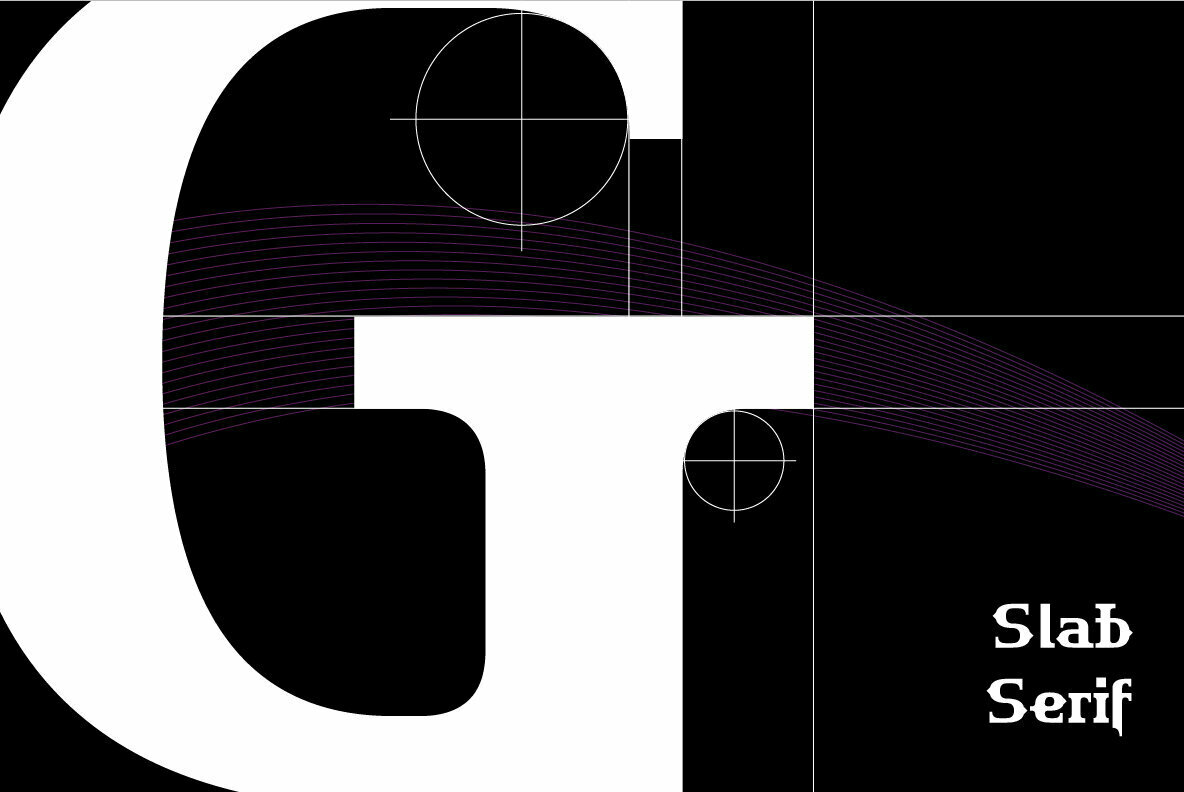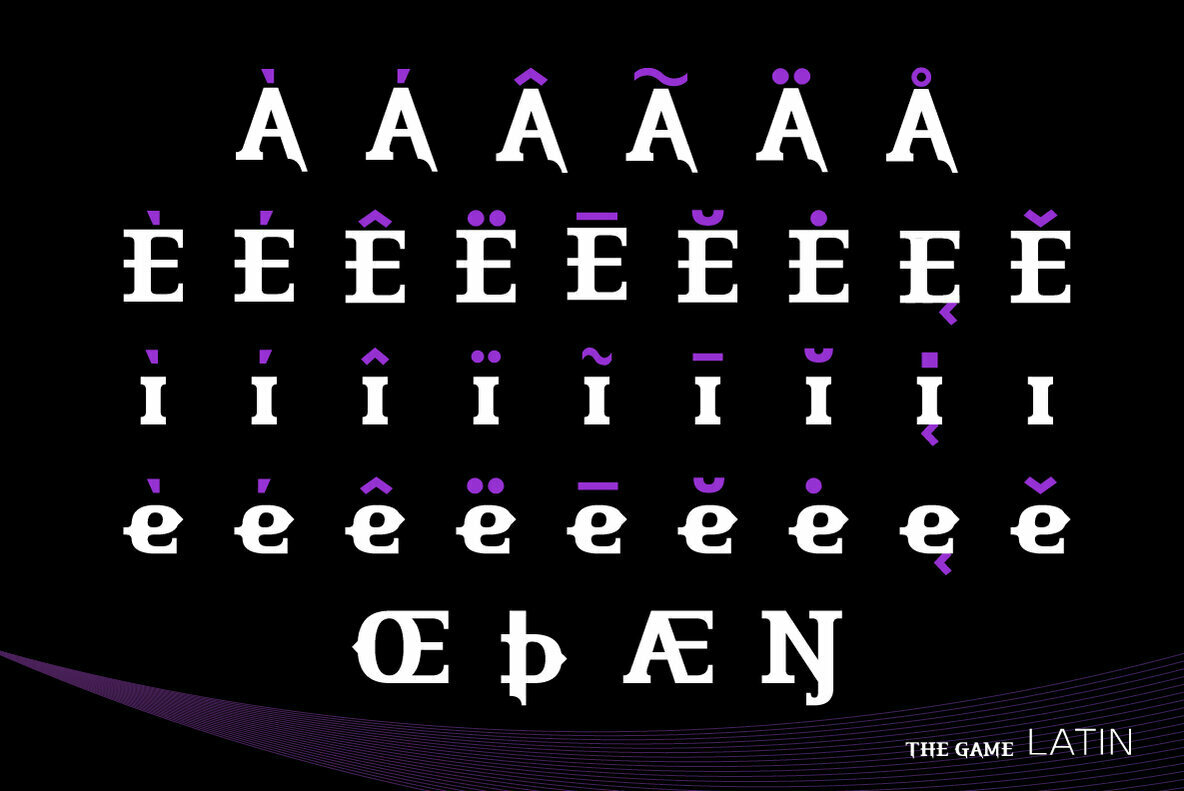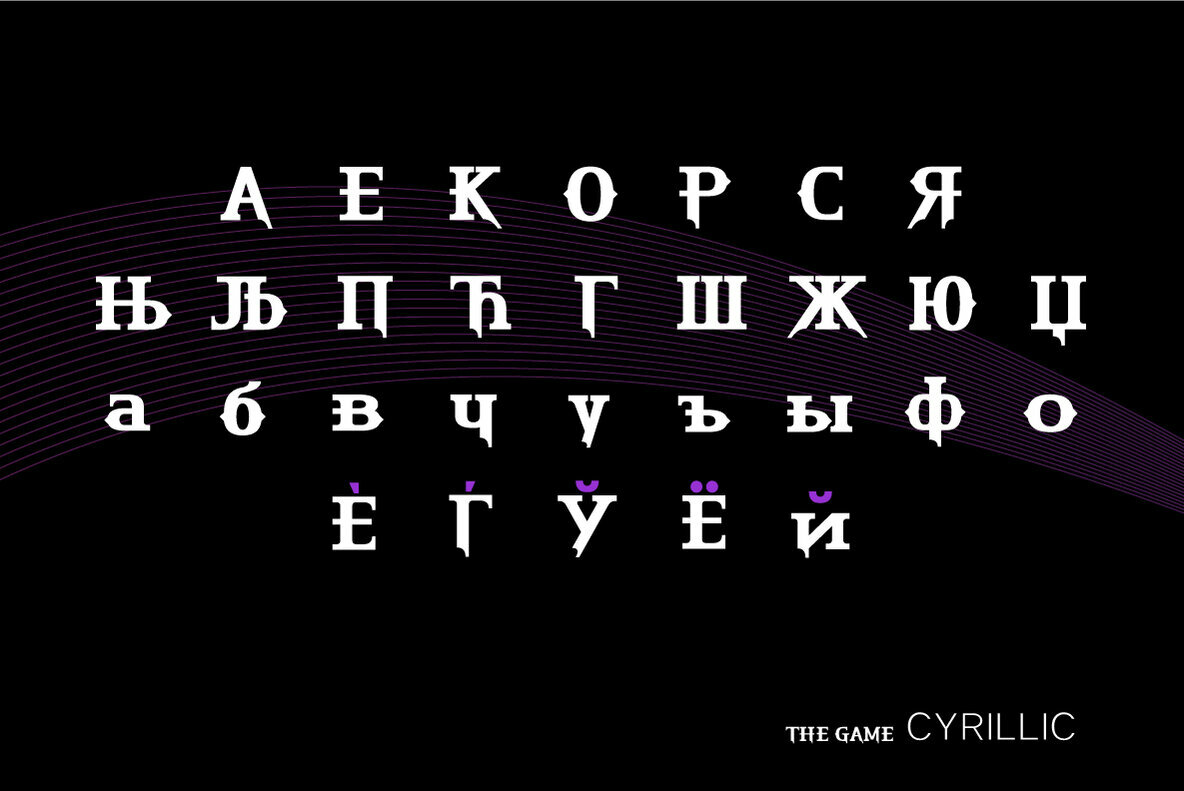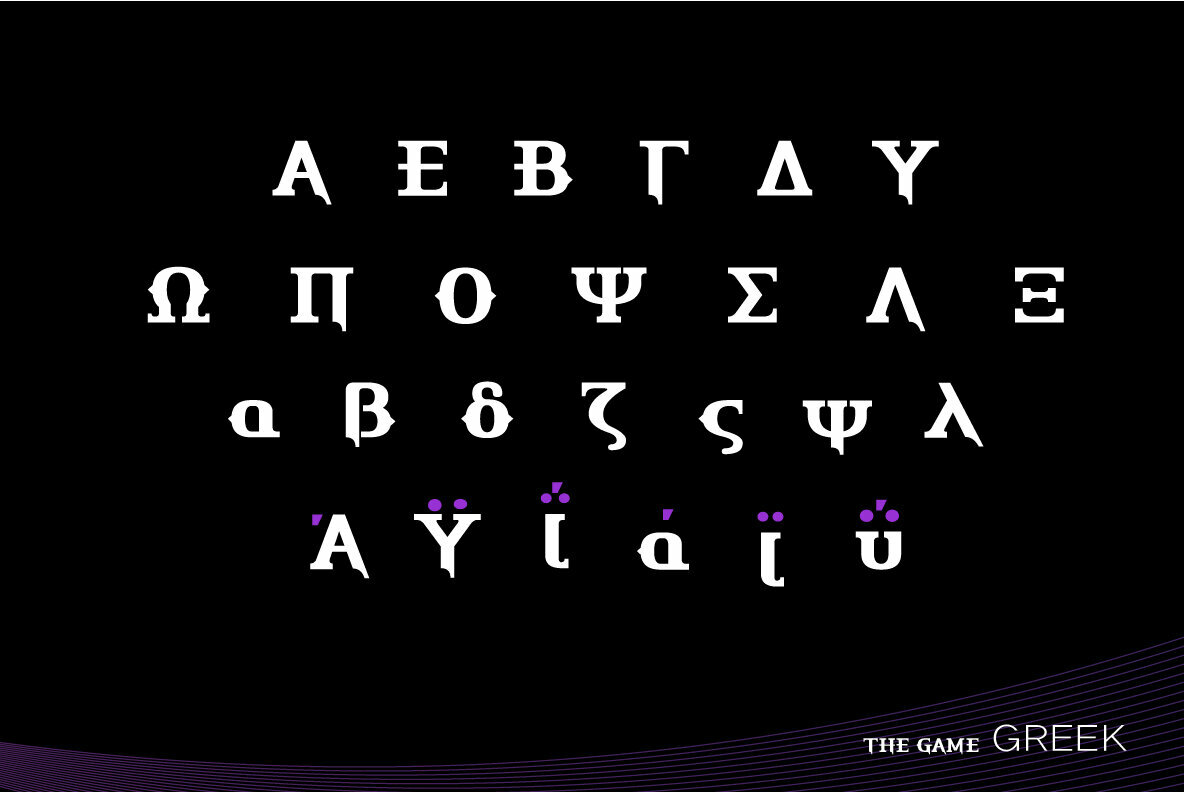
HU The Game Font
HU The Game is a typeface appropriate for title or headline that needs to be stressed out. We got motif from cruel games and reflected scary and horrifying impression in it. The edge of strokes are sharp, which makes you remind of the design of Black Letter of Middle Age. It especially goes well with special festivals like Halloween, so it would be helpful for you to make any images related to them.